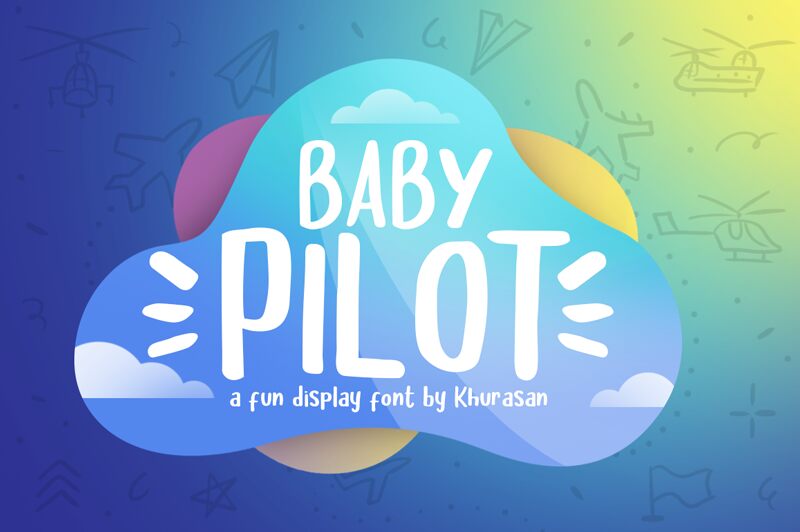
Baby Pilot
Looking for a playful and fun font that adds character to your designs? Look no further than Baby Pilot, designed by Khurasan. This display typeface features a semi-bold weight and condensed width, making it perfect for projects where you want to make a bold statement without taking up too much space. With its comic style, Baby Pilot is ideal for children's books, posters, flyers, and even website headers. Its unique personality will add a touch of whimsy to any project you use it in. Go ahead and take Baby Pilot for a spin – you won't be disappointed!